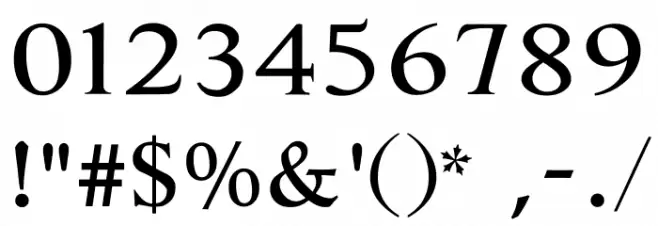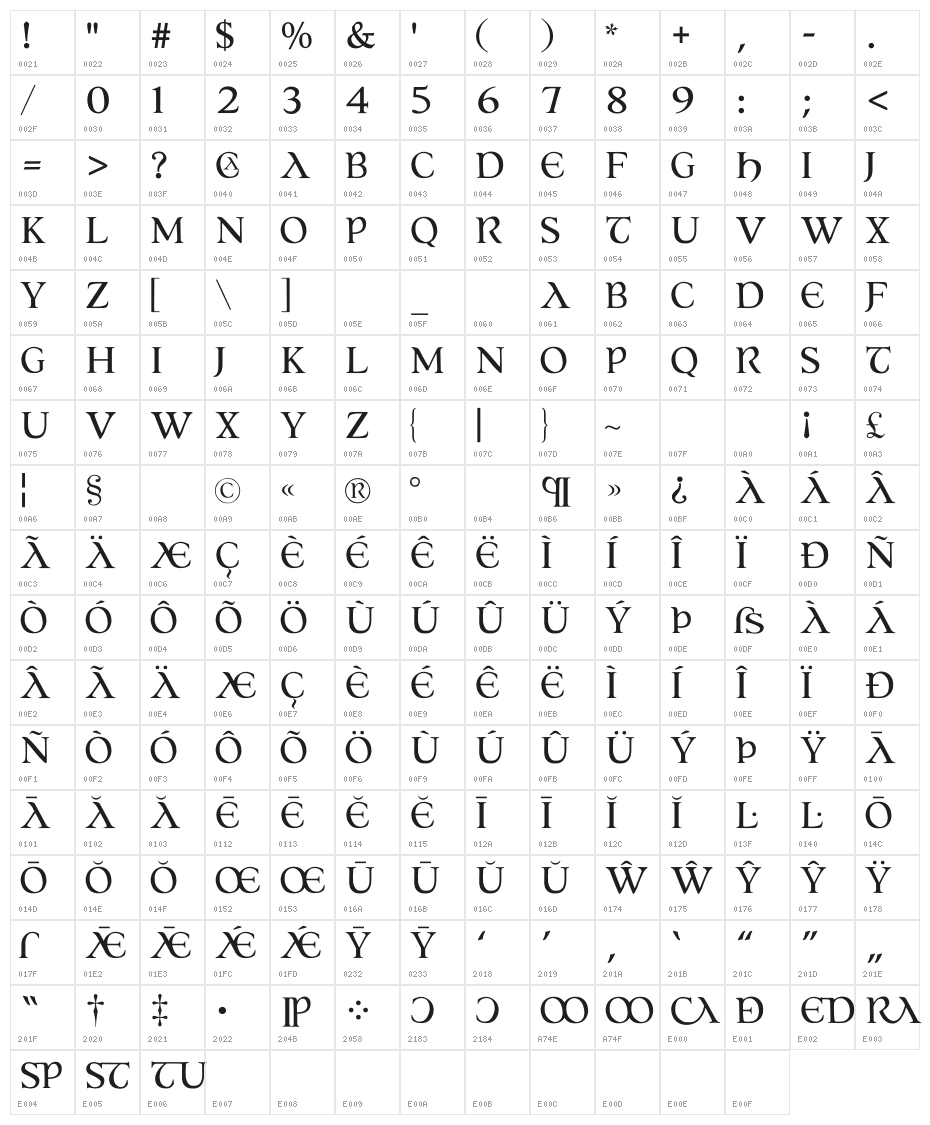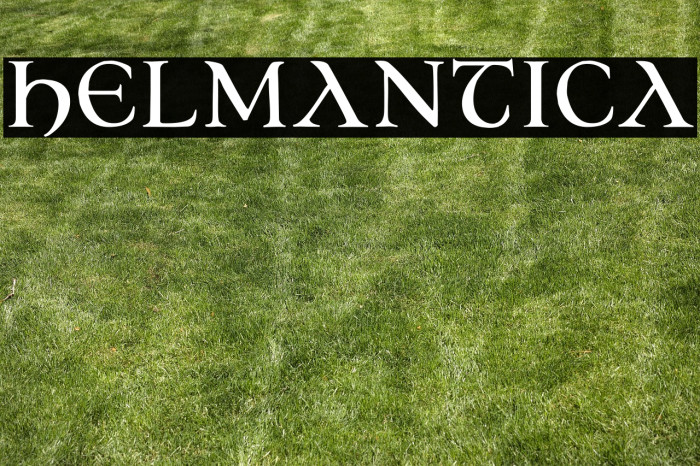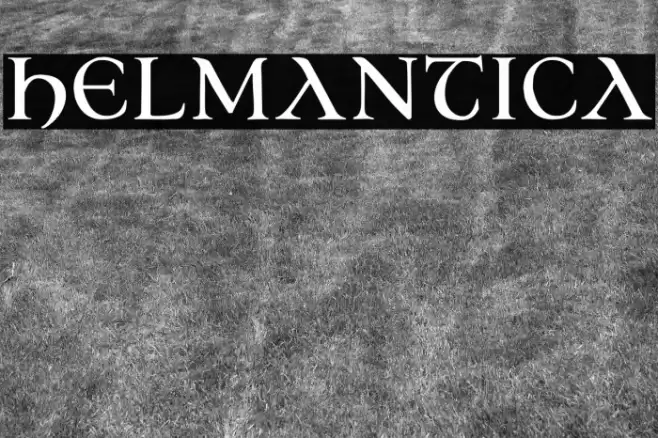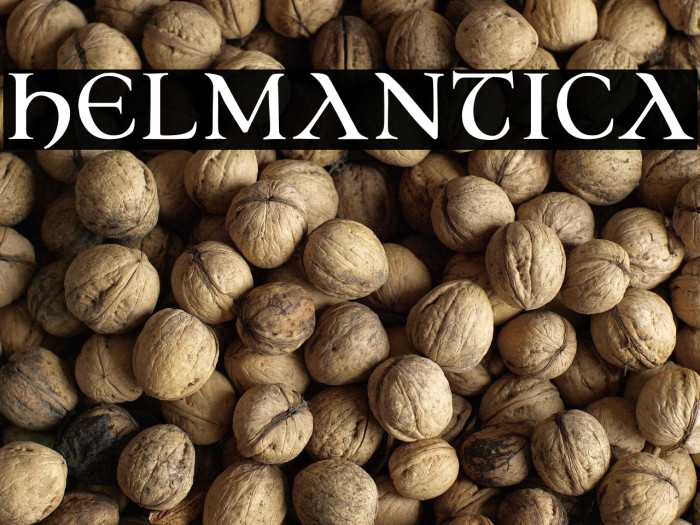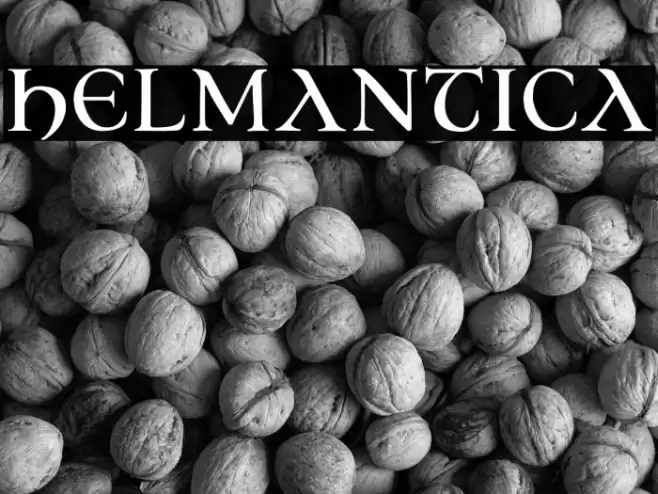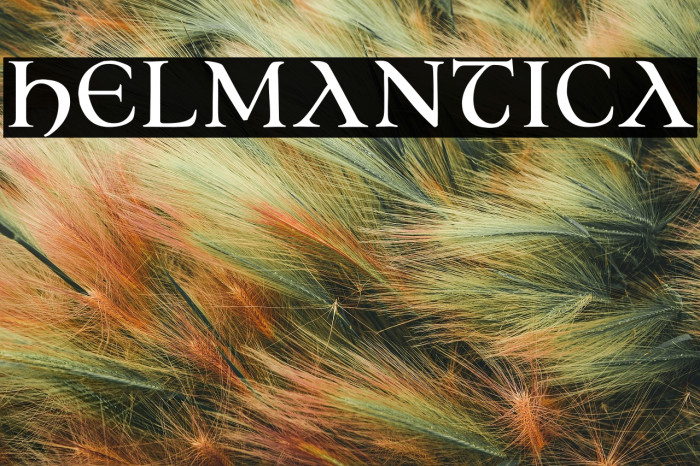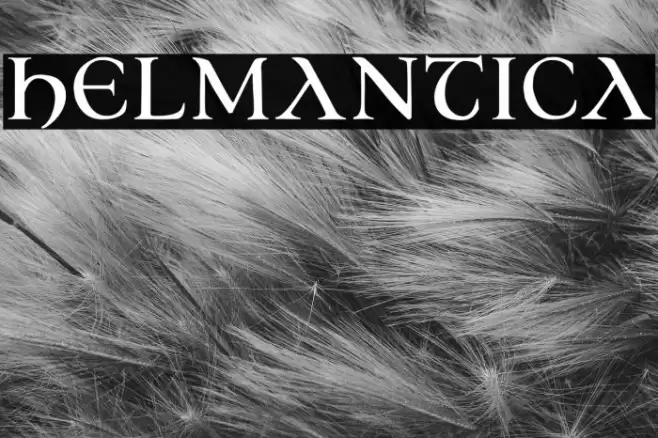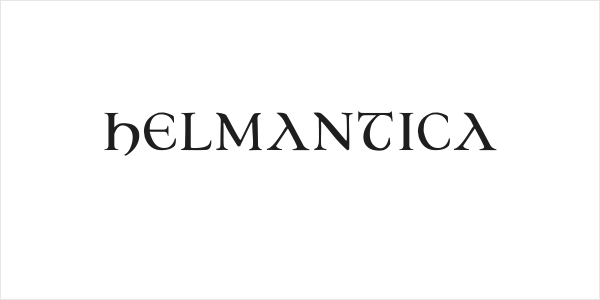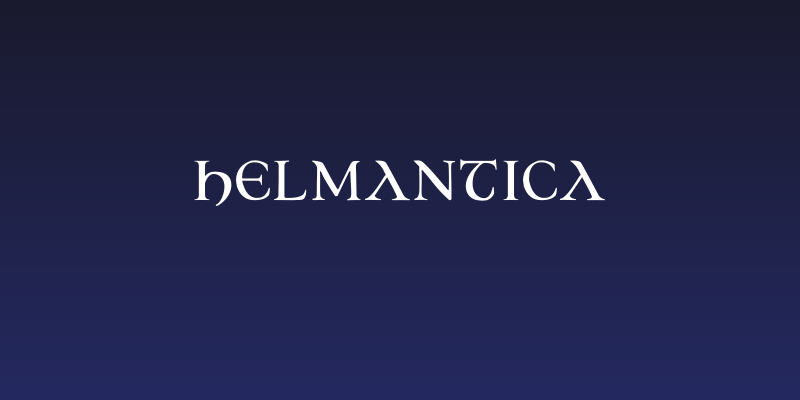
Helmantica Font
Helmantica Description
This font features a classic serif style with a touch of elegance and sophistication. The characters are well-defined with sharp serifs and a slight curvature that adds a unique flair. The uppercase letters are bold and commanding, while the lowercase letters maintain a consistent flow, making it suitable for both headlines and body text. The numerals are clear and distinct, ensuring readability. Special characters are crafted with attention to detail, enhancing the font's versatility. Overall, it exudes a timeless charm, perfect for projects that require a traditional yet stylish appearance.
| Proposed Projects | This font is perfect for editorial design, book covers, formal invitations, branding, and any project that requires a touch of elegance and tradition. |